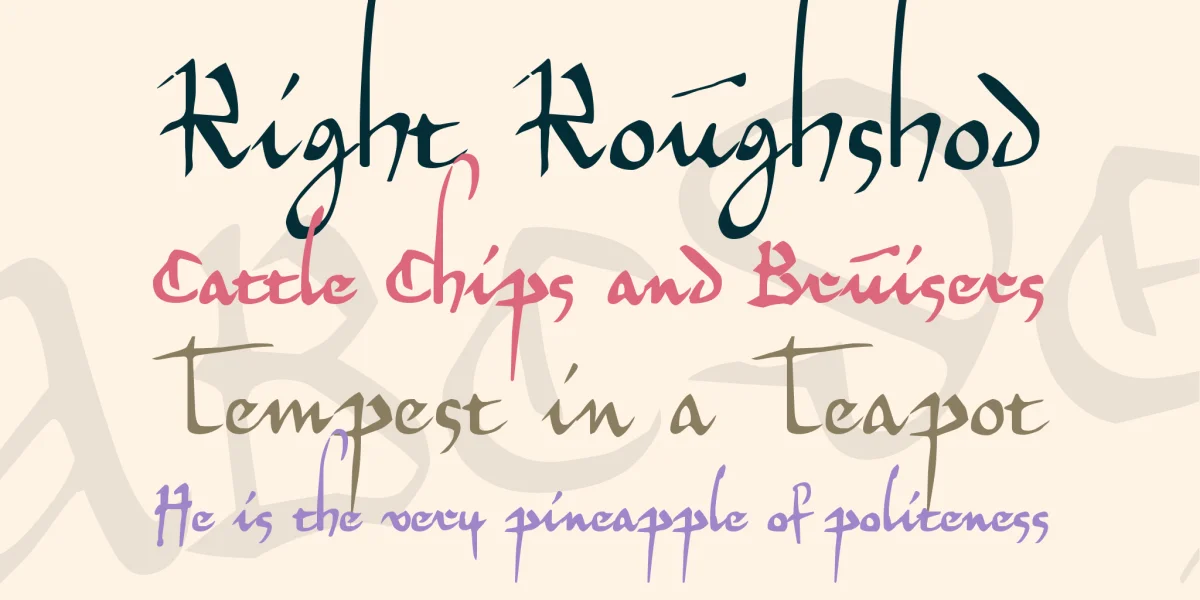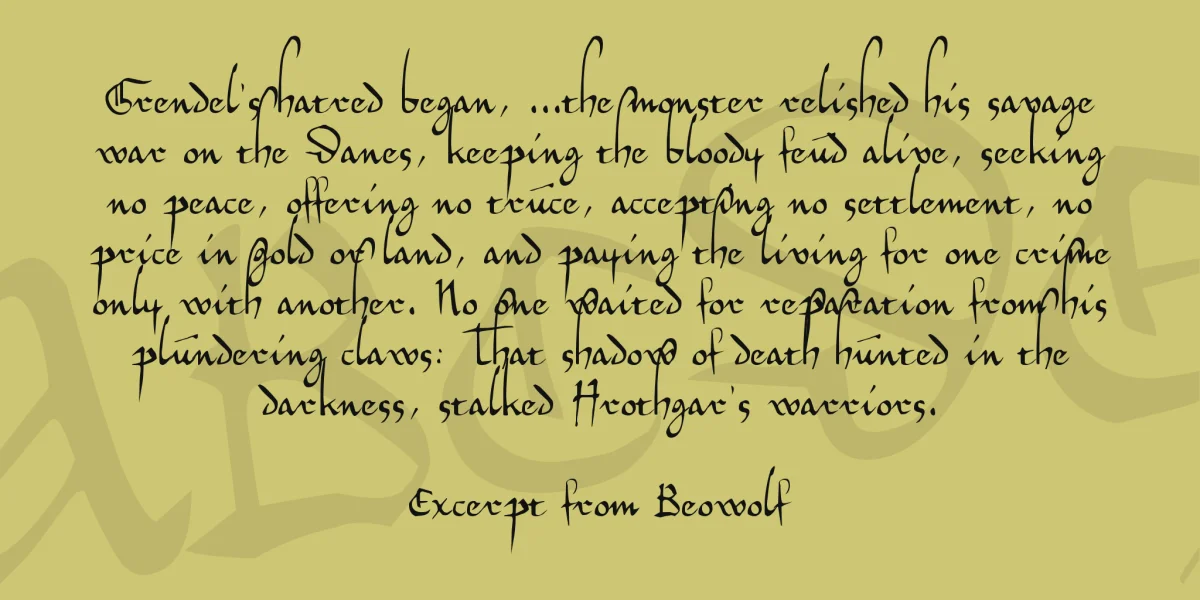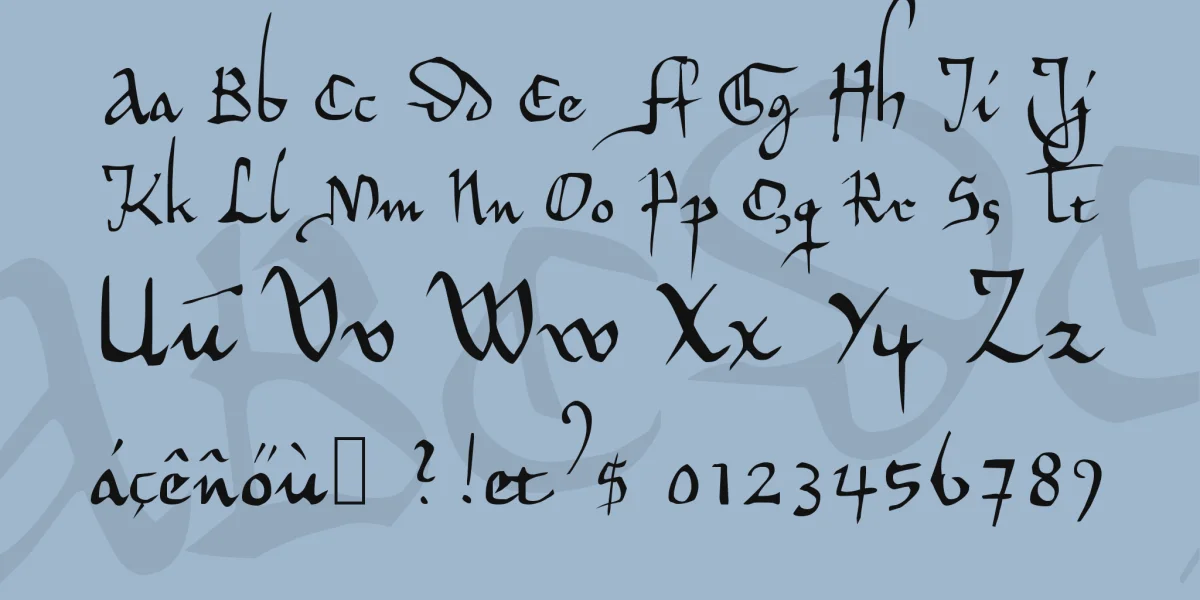
Herman Decanus was inspired by a 13th century official document written by Dean Hermann of Soest, 1269. This font has extremely high ascenders and descenders, nothing to put much text on a page. Most of the uppercase letters are my invention, aimed to be readable for modern readers. Use it for documents that are meant to look "historical".This typeface comes in two weights: regular and light.